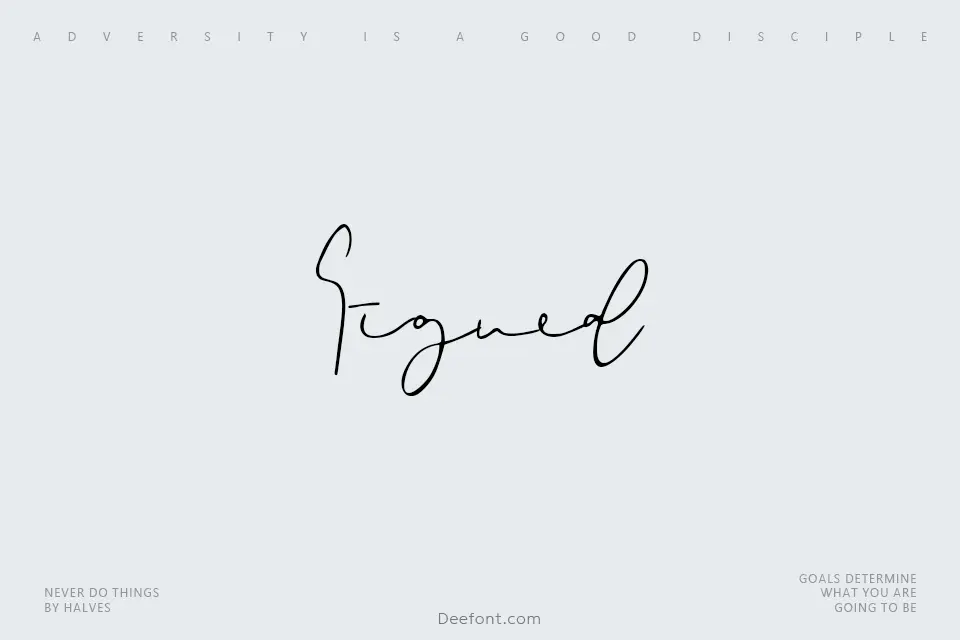
Signed Font
Signed Font is an expressive handwritten typeface that captures the natural flow of authentic pen strokes. With organic letterforms and fluid curves, this script font brings genuine warmth and personality to any design. Featuring authentic handwriting characteristics with varying stroke weights, Signed excels in creative applications such as greeting cards, wedding invitations, decorative posters, social media graphics, and personalized stationery. The font’s natural imperfections and dynamic style make it ideal for projects requiring human touch and emotional connection.